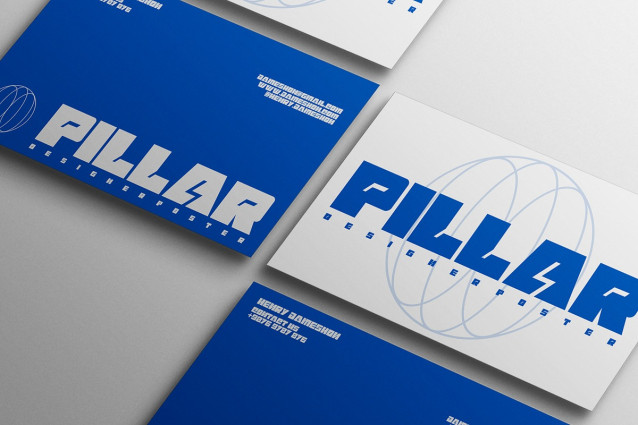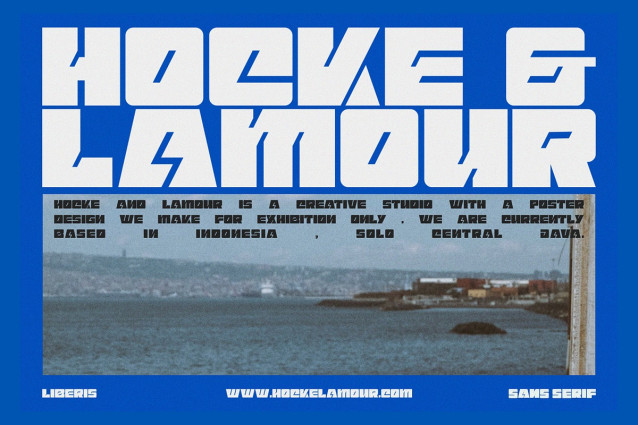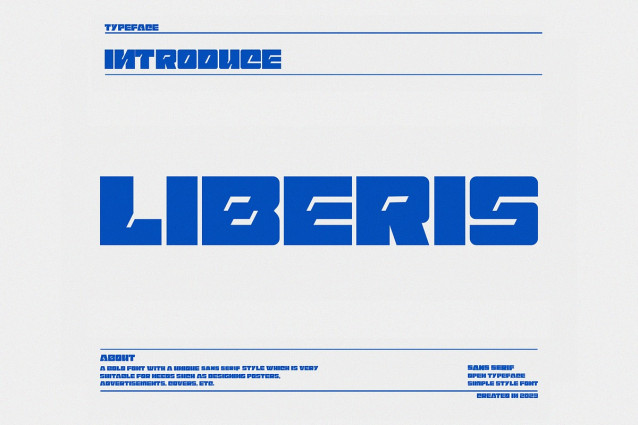
Liberis Font
Liberis Font an open sans serif typeface crafted for minimalist sophistication and maximum impact. Perfect for designers, developers, and creatives seeking a clean and versatile font, Liberis offers a simple yet stylish design that suits a wide range of applications.
Ideal for web design, branding, UI/UX projects, and print materials, Liberis’s clean lines and open letterforms provide excellent readability and visual clarity. Each character is meticulously crafted to maintain consistency and balance, ensuring a seamless and professional appearance across various platforms and media.
The “Liberis” font includes a comprehensive set of uppercase and lowercase letters, numbers, punctuation marks, and symbols. This simplicity and versatility make it easy to use for both headings and body text, allowing for effortless integration into any design project.
Experience minimalist sophistication with Liberis, the sans serif typeface that elevates your designs with effortless style and clarity.